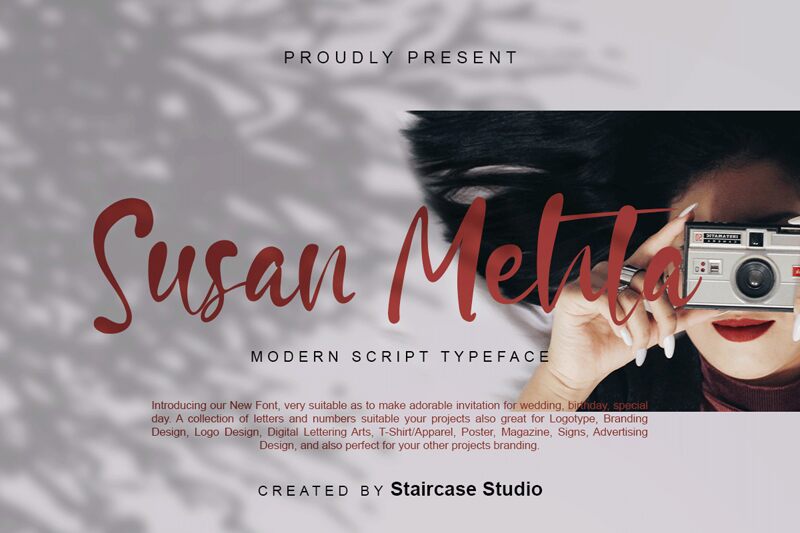
Susan Mehta
Susan Mehta is a smooth brush font designed by Staircase Studio, perfect for adding an elegant touch to your creative projects. Its soft curves and fluid strokes make it suitable for a variety of uses, from branding and packaging to social media graphics and invitations. This font's graceful flourishes evoke a sense of sophistication and warmth that will elevate any design. Whether you're working on a wedding invitation or a product label, Susan Mehta will help you achieve the perfect balance between stylishness and approachability. Add this beautiful font to your collection today!